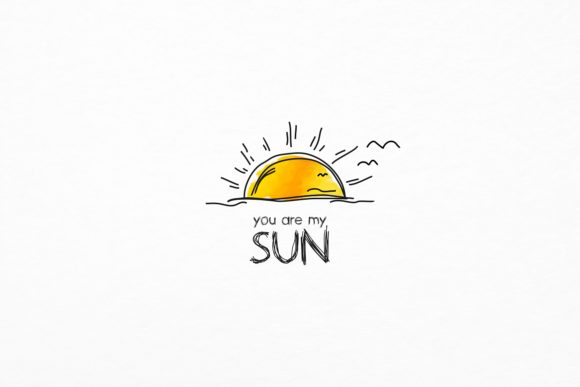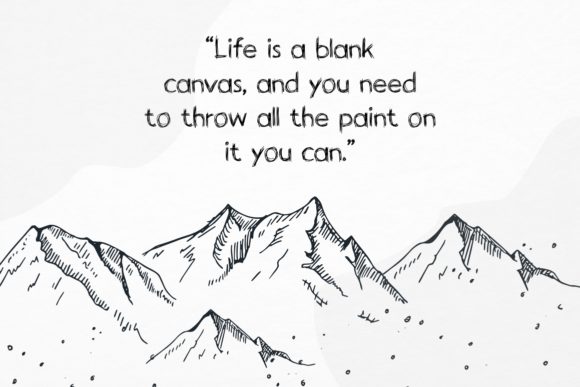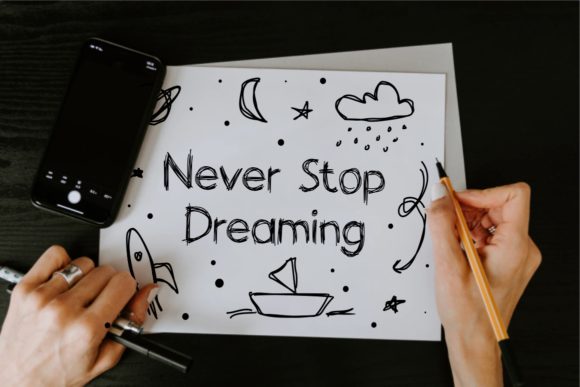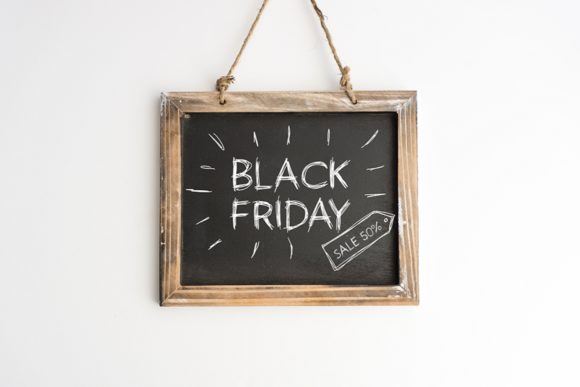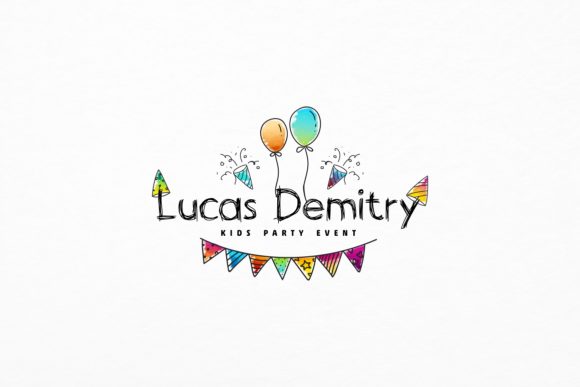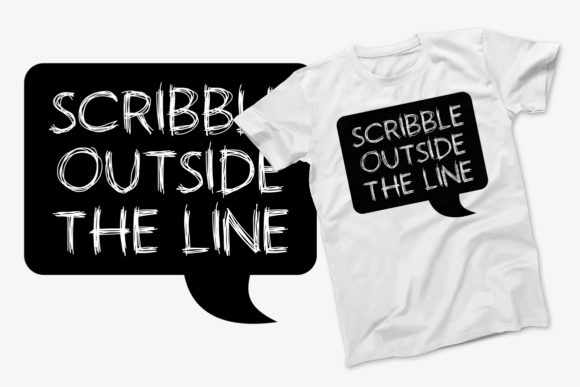
Introducing Handodle Font: The Perfect Blend of Modern Vibe and Authentic Charm
In the world of typography, fonts play a crucial role in conveying the tone and personality of a brand or design. For designers and crafters, finding the right font can be a daunting task, especially when looking for something that exudes a unique blend of modernity and authenticity. This is where Handodle Font comes in – a thin and authentic display font that adds an unfiltered twist to your designs.
The Story Behind Handodle Font
Handodle Font is a carefully crafted typeface that embodies the essence of modern design while paying homage to traditional typography. Its creator aimed to develop a font that would not only stand out in the digital landscape but also evoke a sense of nostalgia and timelessness. The result is a font that is both sleek and sophisticated, making it perfect for a wide range of design applications.
Key Features of Handodle Font
- Thin and Authentic: Handodle Font boasts a remarkably thin and authentic design, making it ideal for display purposes. Its slender lines and carefully crafted letterforms ensure that your text remains legible even at smaller sizes.
- Unfiltered Twist: What sets Handodle apart from other fonts is its unfiltered twist. The font features subtle imperfections and quirks that give it a human touch, making it perfect for designers looking to add a personal touch to their work.
- Modern Vibe: Handodle Font exudes a distinctly modern vibe, making it perfect for contemporary designs. Its sleek lines, balanced proportions, and meticulous attention to detail ensure that your designs look fresh and cutting-edge.
Use Cases for Handodle Font
Handodle Font’s versatility makes it suitable for a wide range of design applications, including:
- Branding and Logo Design: Use Handodle Font to create stunning logos and brand identities that exude sophistication and modernity.
- Advertising and Marketing Materials: Add a touch of elegance and refinement to your advertising and marketing materials, such as brochures, flyers, and posters.
- Digital Media: Handodle Font is perfect for digital media, including social media graphics, website headers, and mobile app designs.
- Crafting and DIY Projects: Crafters and DIY enthusiasts can use Handodle Font to add a personal touch to their projects, such as handmade cards, invitations, and scrapbooking.
Tips for Using Handodle Font Effectively
To get the most out of Handodle Font, consider the following tips:
- Pair with Contrasting Fonts: Combine Handodle Font with contrasting fonts to create visual interest and hierarchy in your designs.
- Experiment with Colors: Handodle Font looks stunning in a range of colors. Experiment with different hues and shades to find the perfect combination for your design.
- Pay Attention to Spacing: Make sure to adjust the spacing between letters and lines to ensure optimal legibility and visual flow.
Handodle Font is a unique and versatile typeface that offers a perfect blend of modernity and authenticity. Its thin and authentic design, unfiltered twist, and modern vibe make it an excellent choice for designers and crafters looking to add a touch of sophistication to their work. With its wide range of use cases and tips for effective use, Handodle Font is sure to become a staple in your design arsenal.